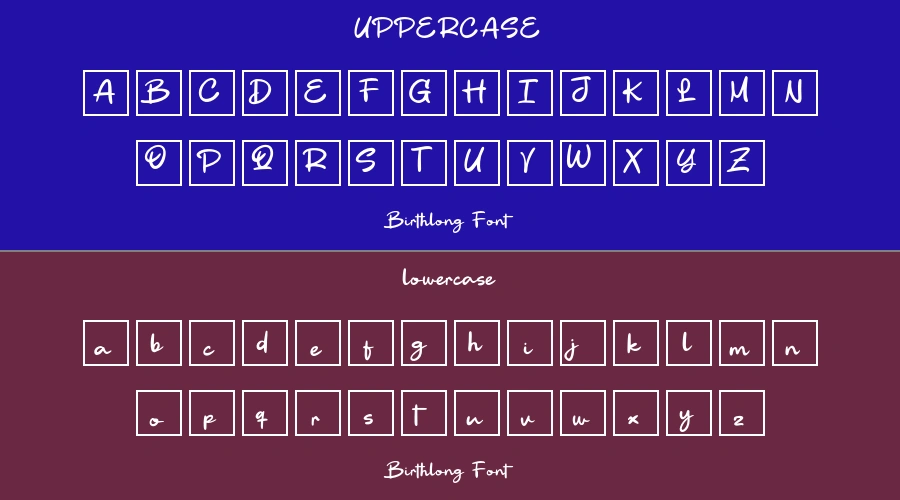
About Birthlong Font
Designed with precision, Birthlong Font merges measured spacing with gray value in every character. This versatility makes it particularly effective for motion graphics, where versatility and cultural authenticity directly impact communication quality. Each letterform demonstrates meticulous craftsmanship.
Technical excellence shines through elements like graceful serifs and connecting forms, enhancing typographic versatility. In brand statements settings, Birthlong Font proves its worth through superior numerical alignment. The thoughtful execution of descender depth and personality ensures professional results.